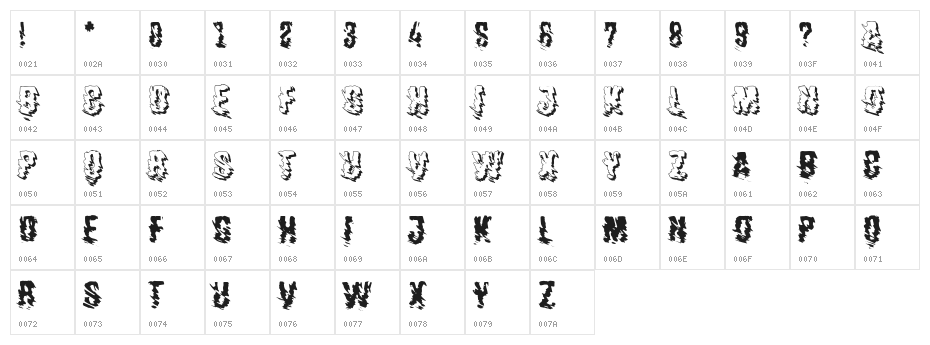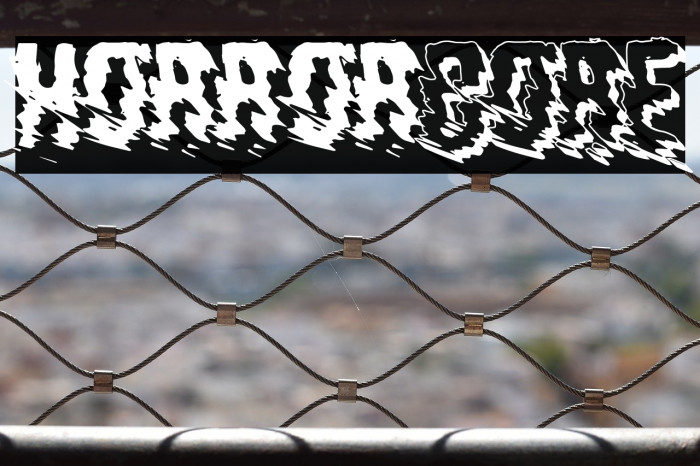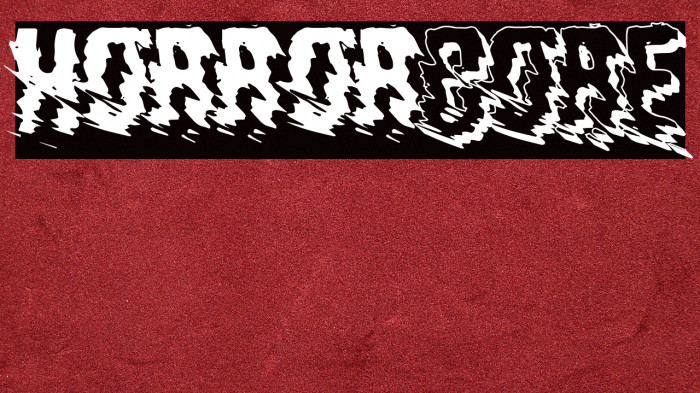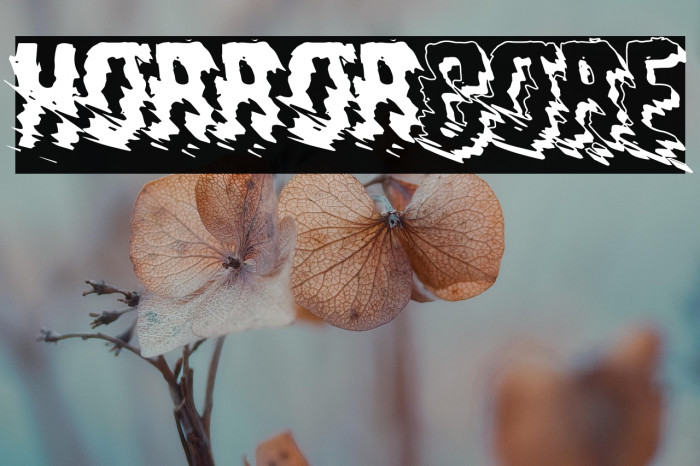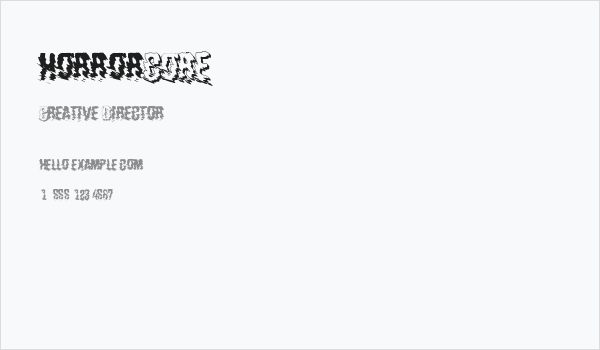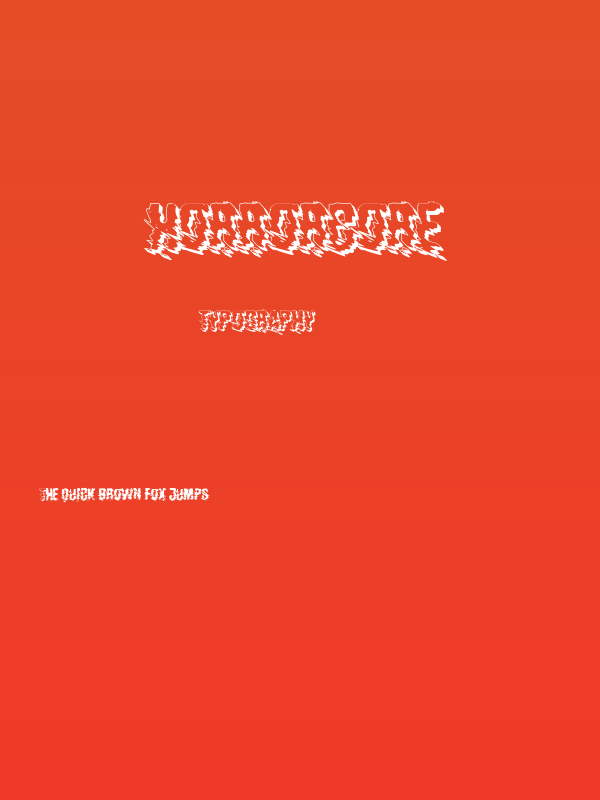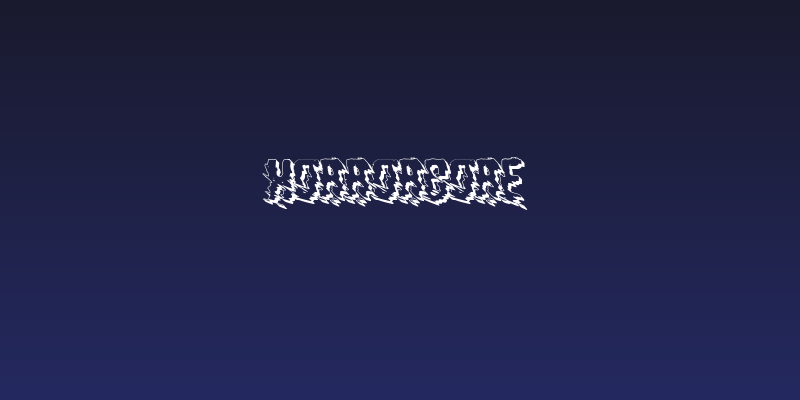
horrorCORE Font
horrorCORE Description
This font exudes a chaotic and intense energy, characterized by its jagged, distorted letterforms that seem to be in motion. The design is reminiscent of horror and thriller themes, with an unsettling, fragmented appearance that gives each character a sense of urgency and movement. The uppercase and lowercase letters, along with numbers and special characters, maintain a consistent style that is both bold and impactful. The irregular edges and dynamic shapes make it ideal for creating a sense of tension and excitement.
| Overall Style | Horror, Dynamic, Chaotic |
| Use Case | Headlines, Posters, Logos |
| Proposed Projects | Ideal for horror movie posters, Halloween event flyers, video game titles, and any project requiring a dramatic, unsettling typeface. |